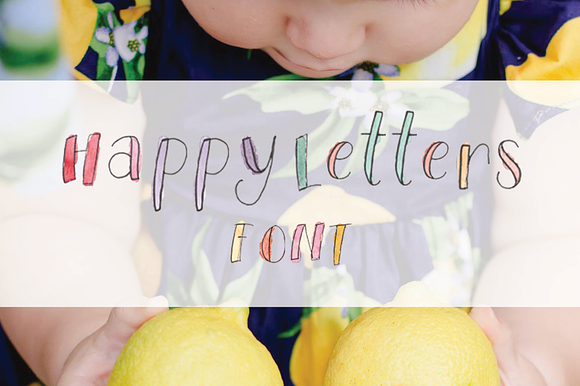
Happy Letters Font
This colorful and playful font consists of an uppercase and lowercase alphabet. The letters are watercolor and ink.
- This colorful and playful font consists of an uppercase and lowercase alphabet.
Happy Letters Font by JuliannePatterson fits naturally into Branding, posters, packaging, typography.